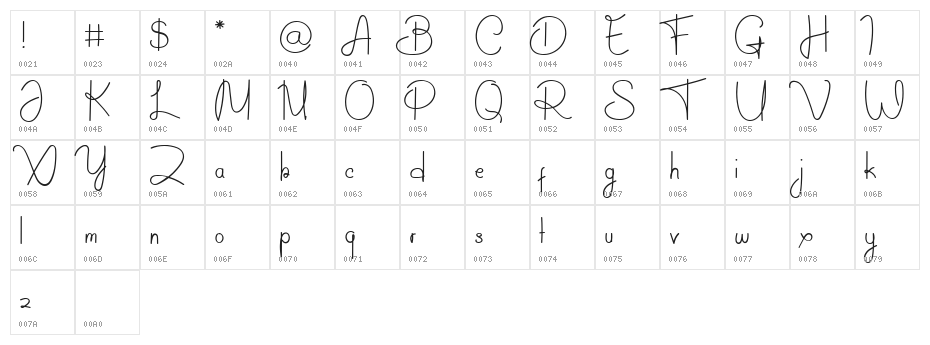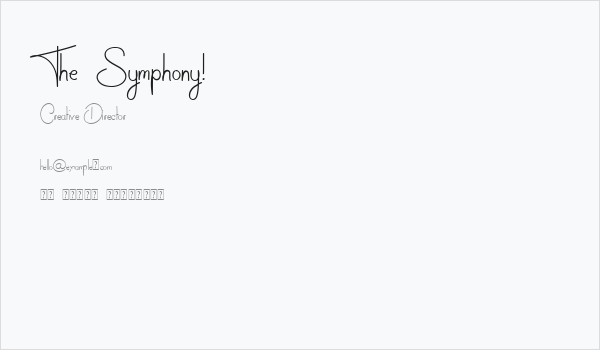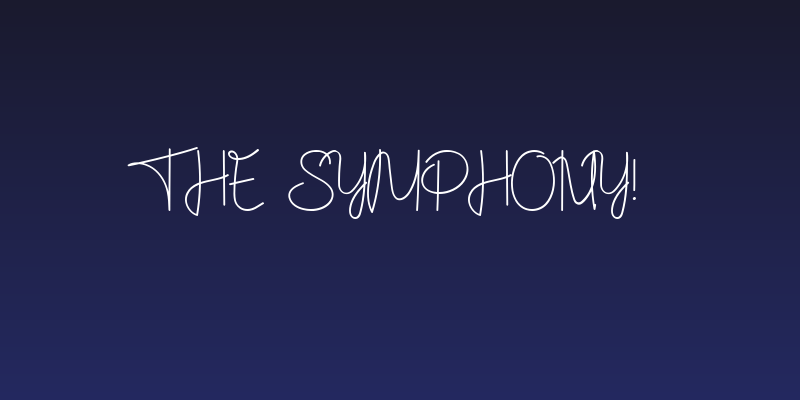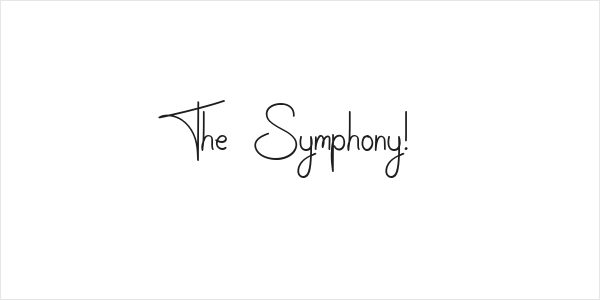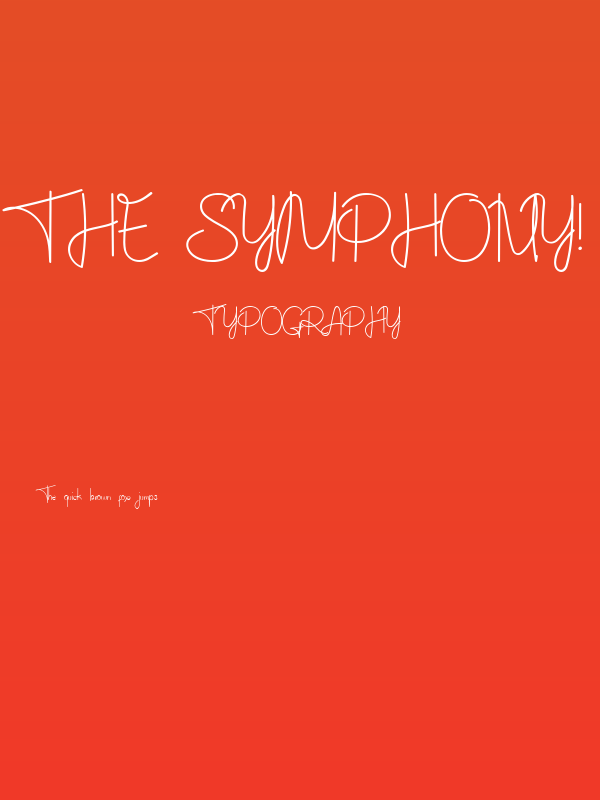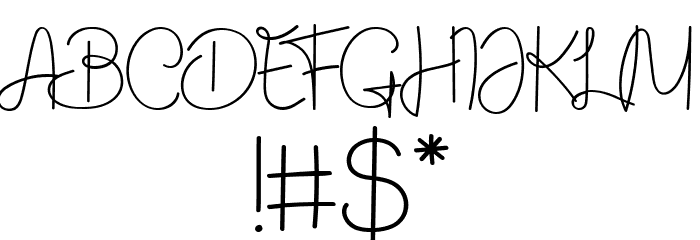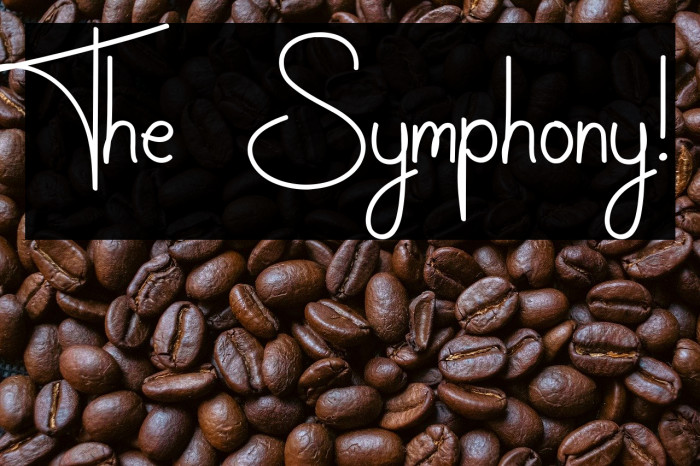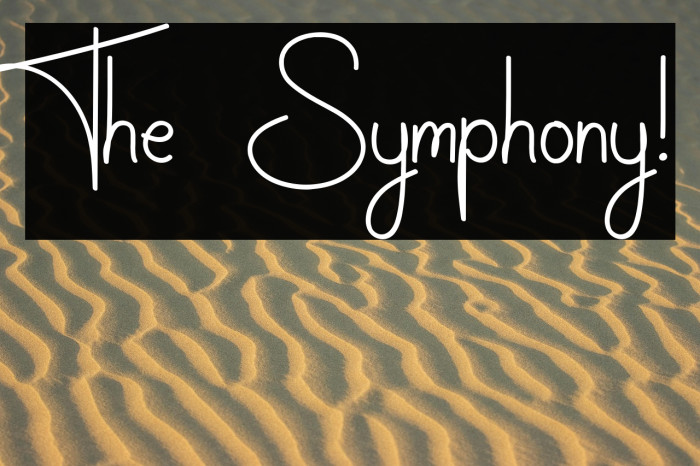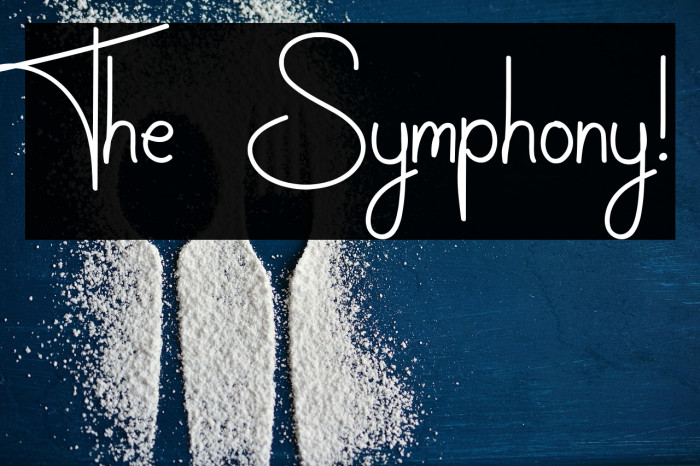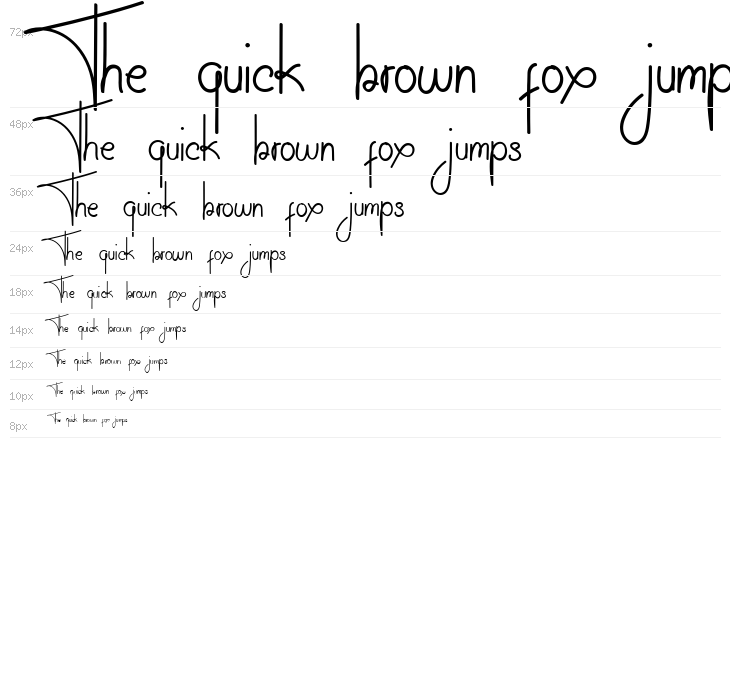
The Symphony! Font
The Symphony! Description
This font features an elegant and whimsical design, characterized by its flowing, interconnected letters that give it a handwritten appearance. The uppercase letters are tall and slender, with playful loops and curves that add a sense of movement and grace. The lowercase letters maintain a consistent style, with some characters featuring unique flourishes that enhance the overall aesthetic. The numbers and special characters are designed to complement the alphabet, maintaining the same fluid and artistic style. This font is perfect for projects that require a touch of elegance and creativity.
| Proposed Projects | Ideal for wedding invitations, greeting cards, branding, and artistic projects that require a personal touch. |